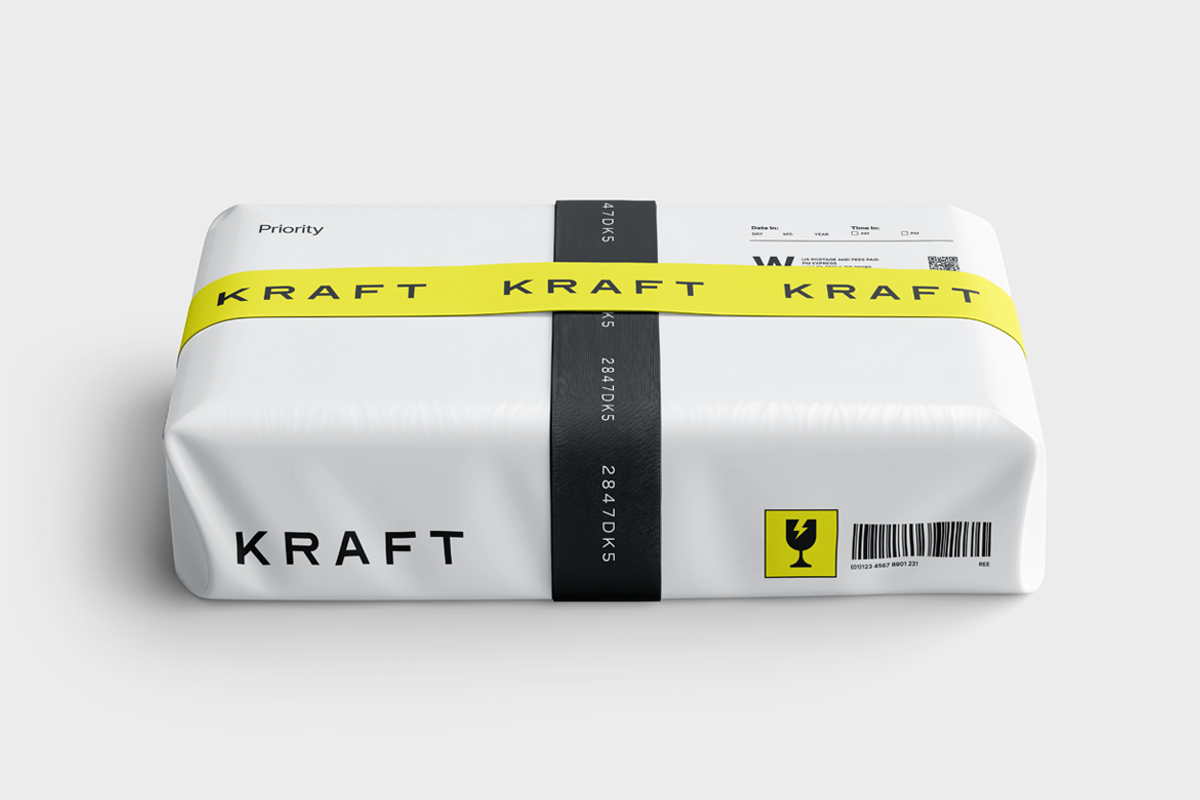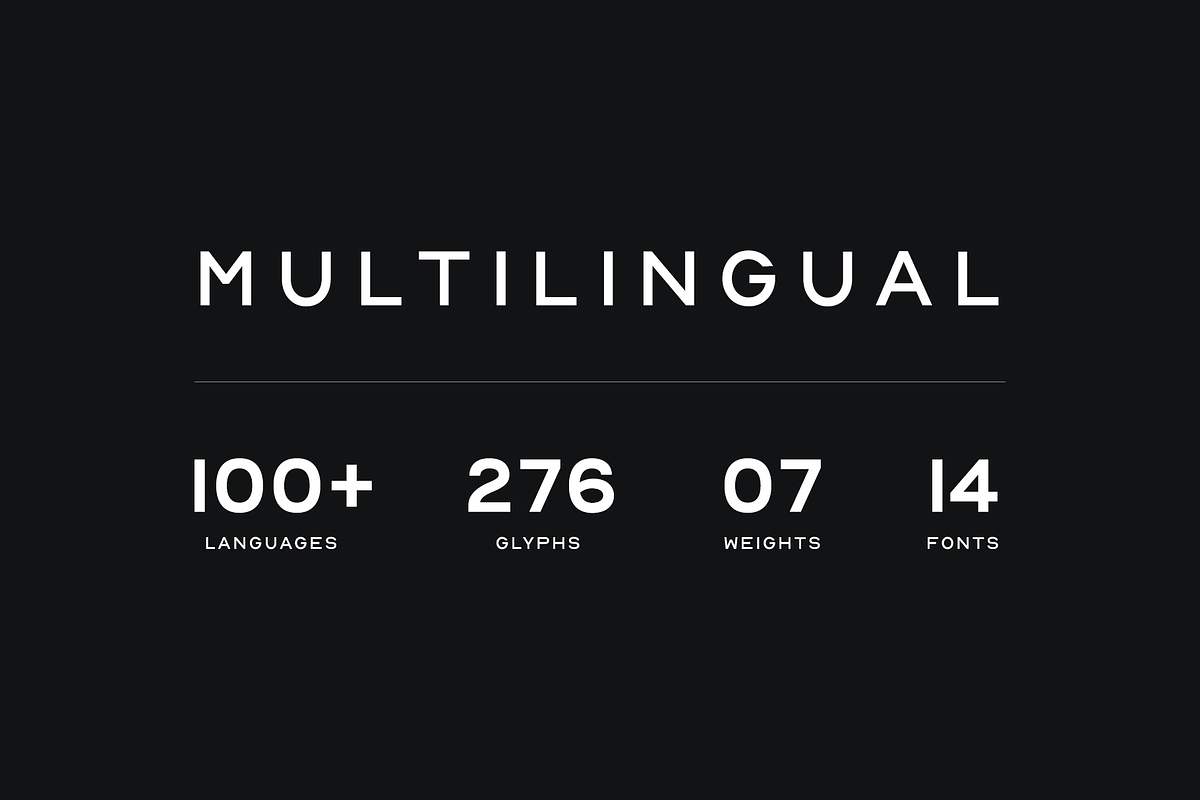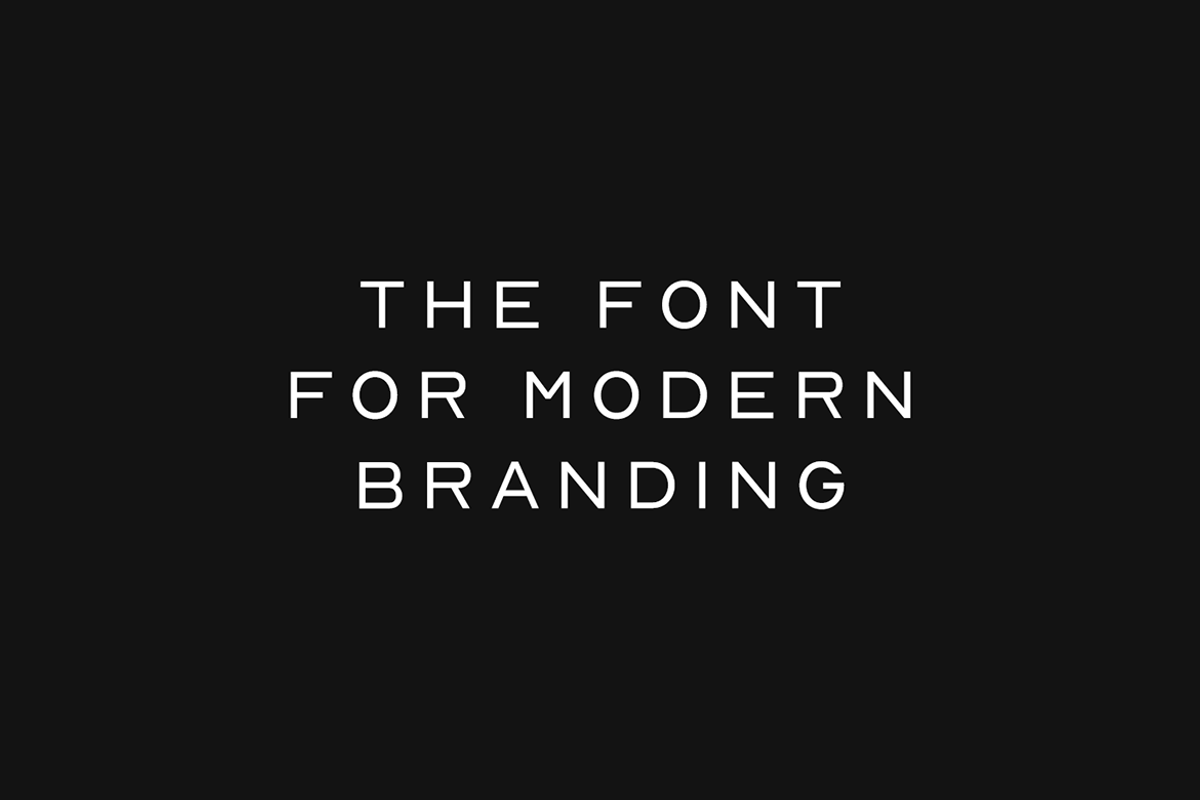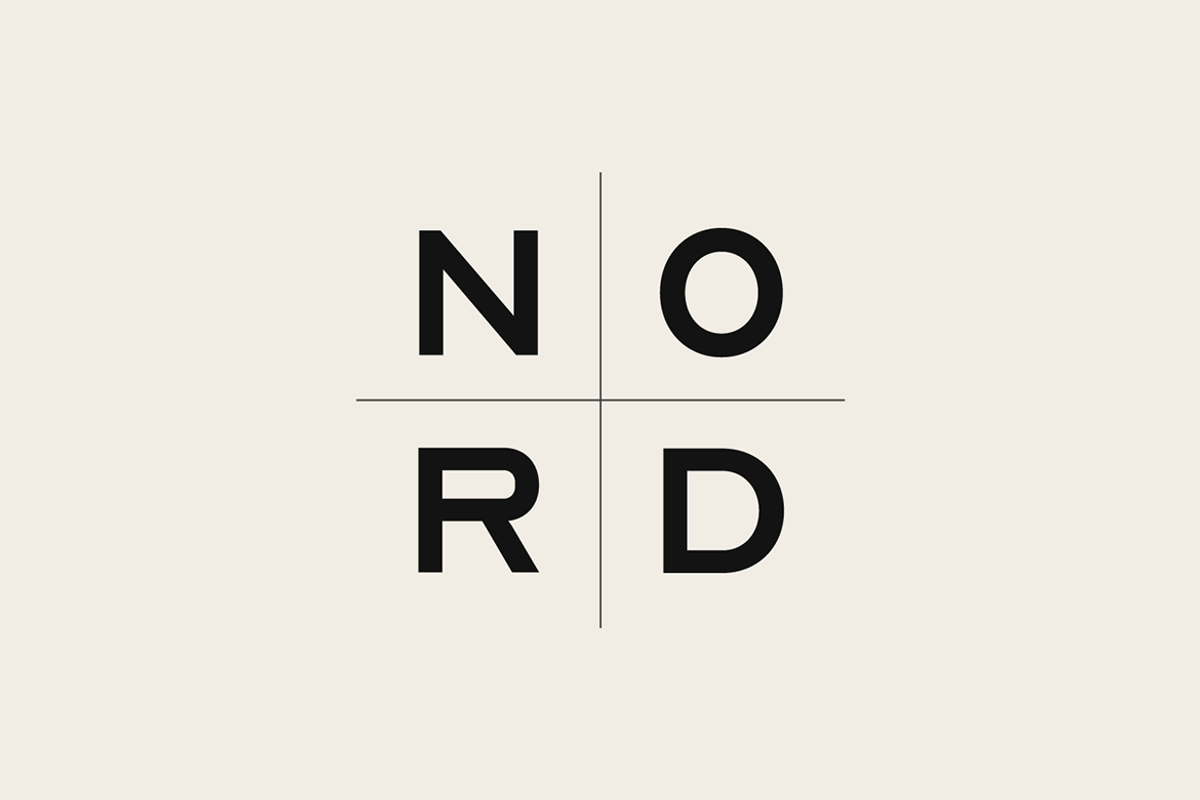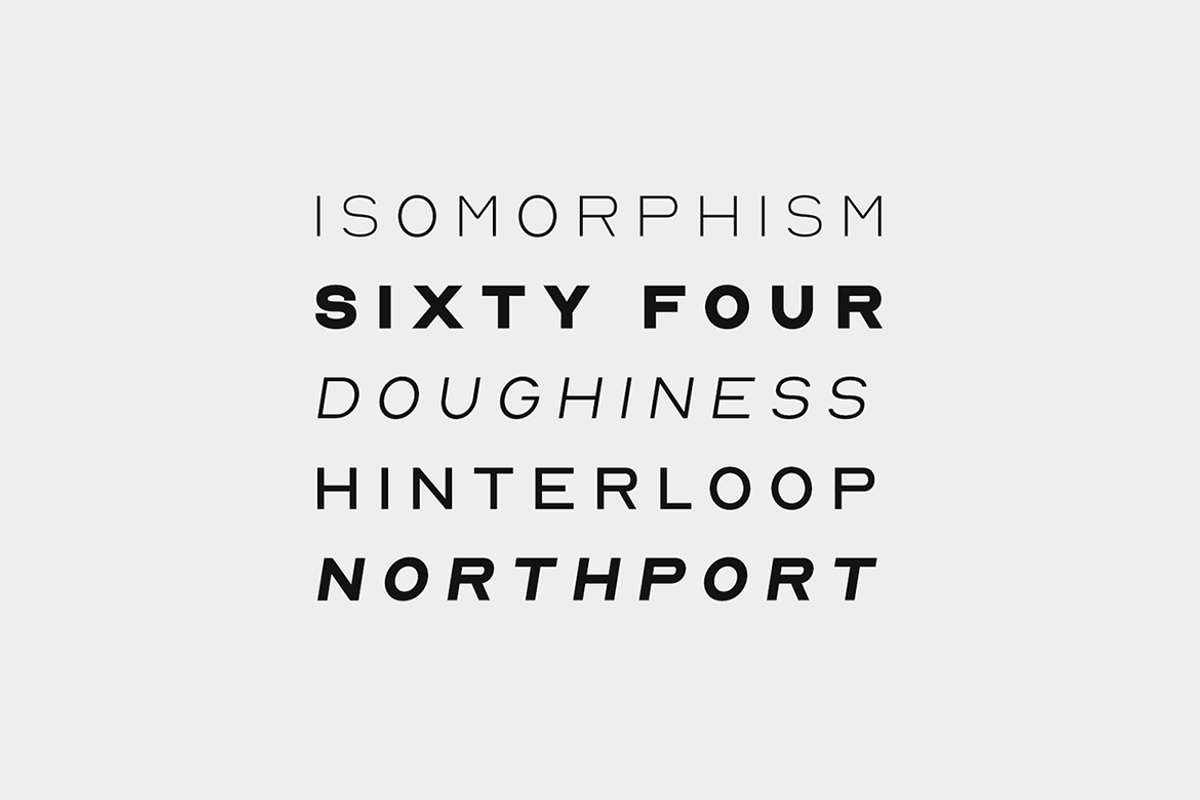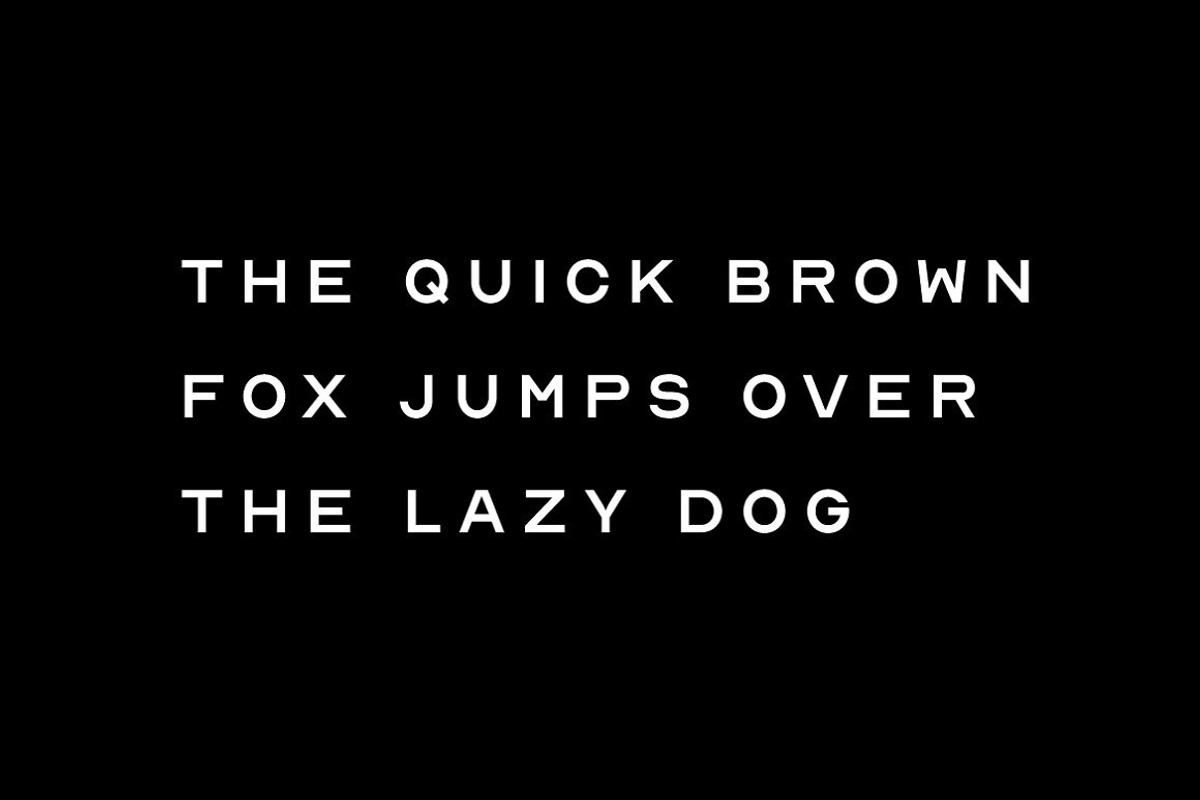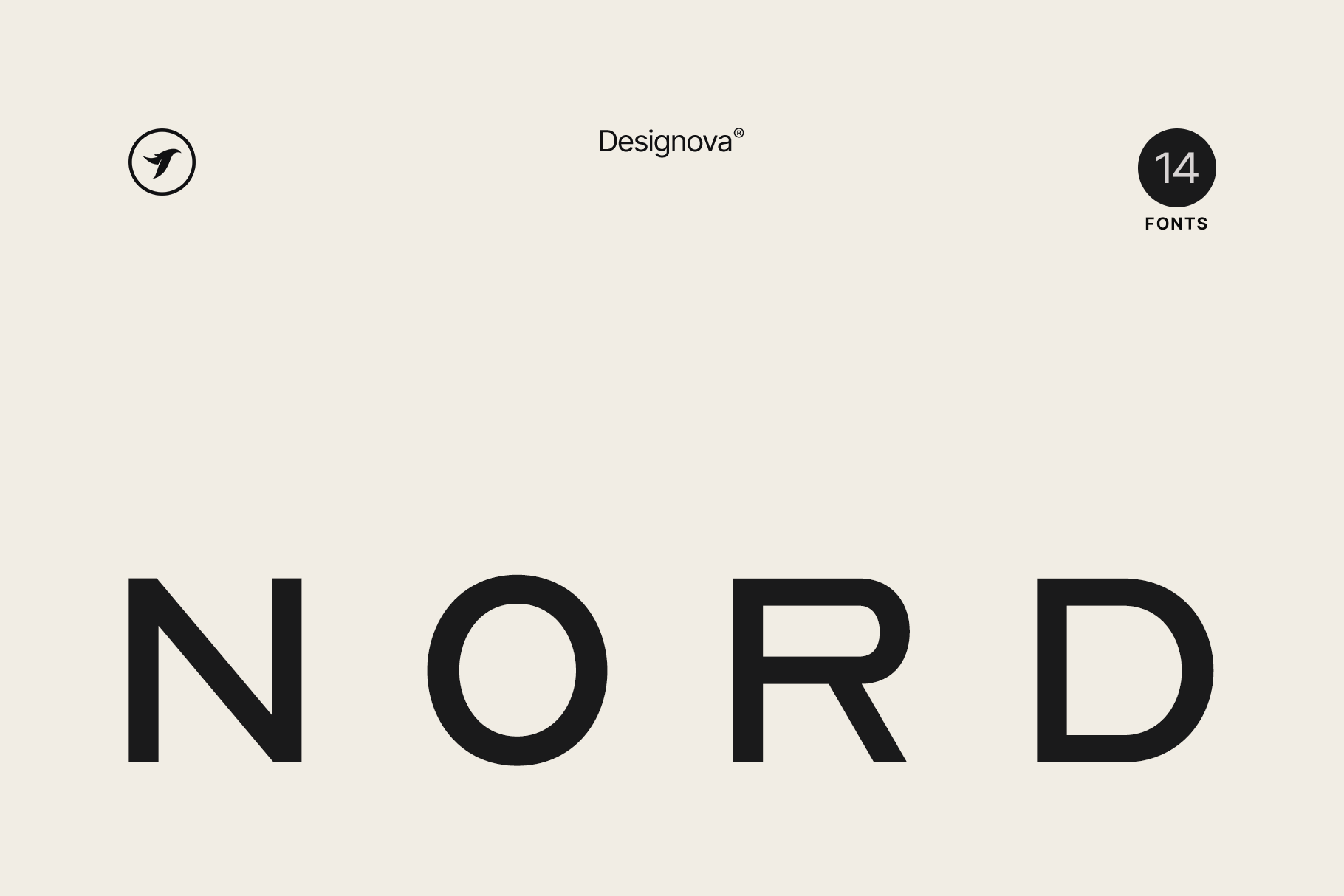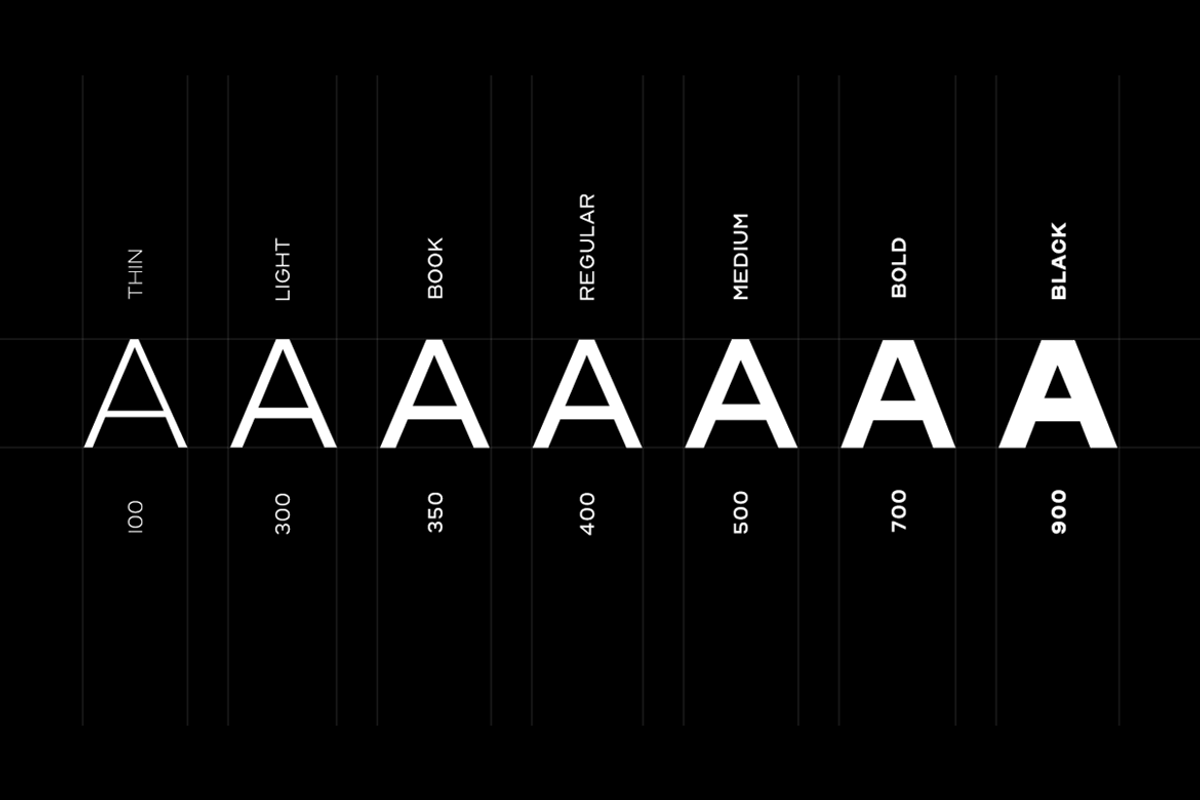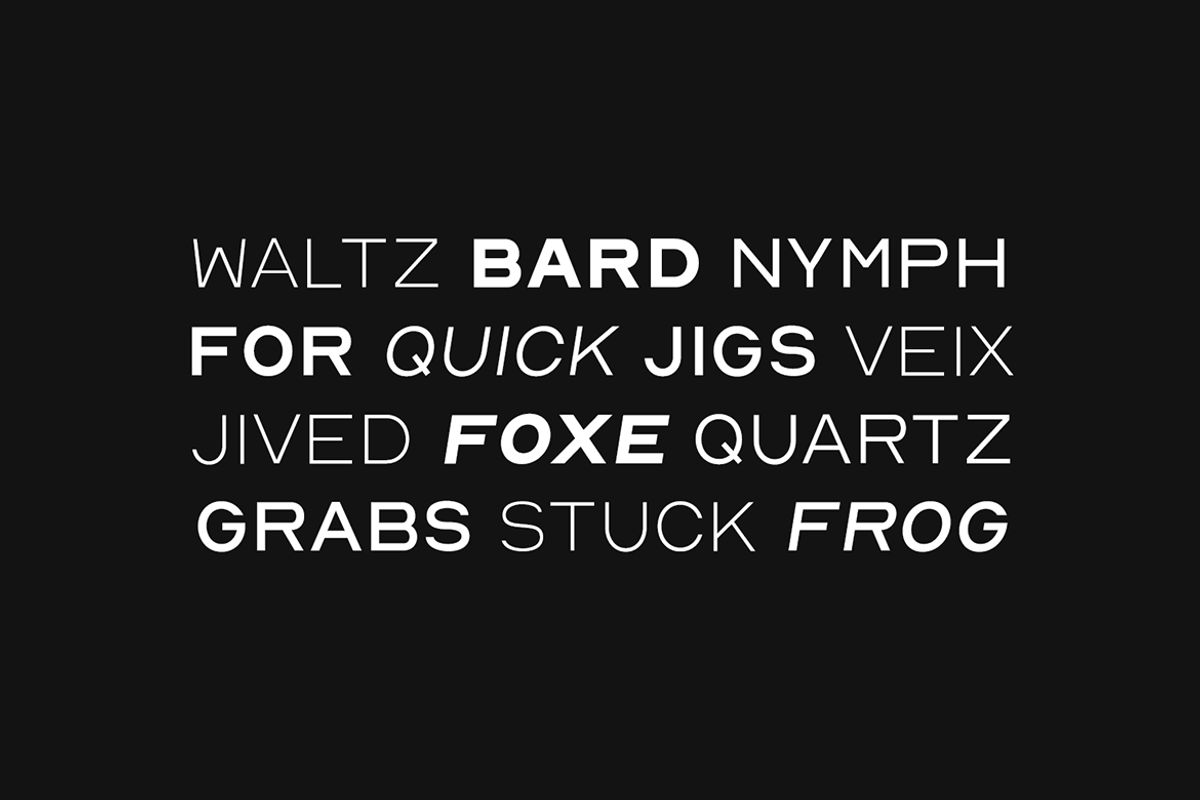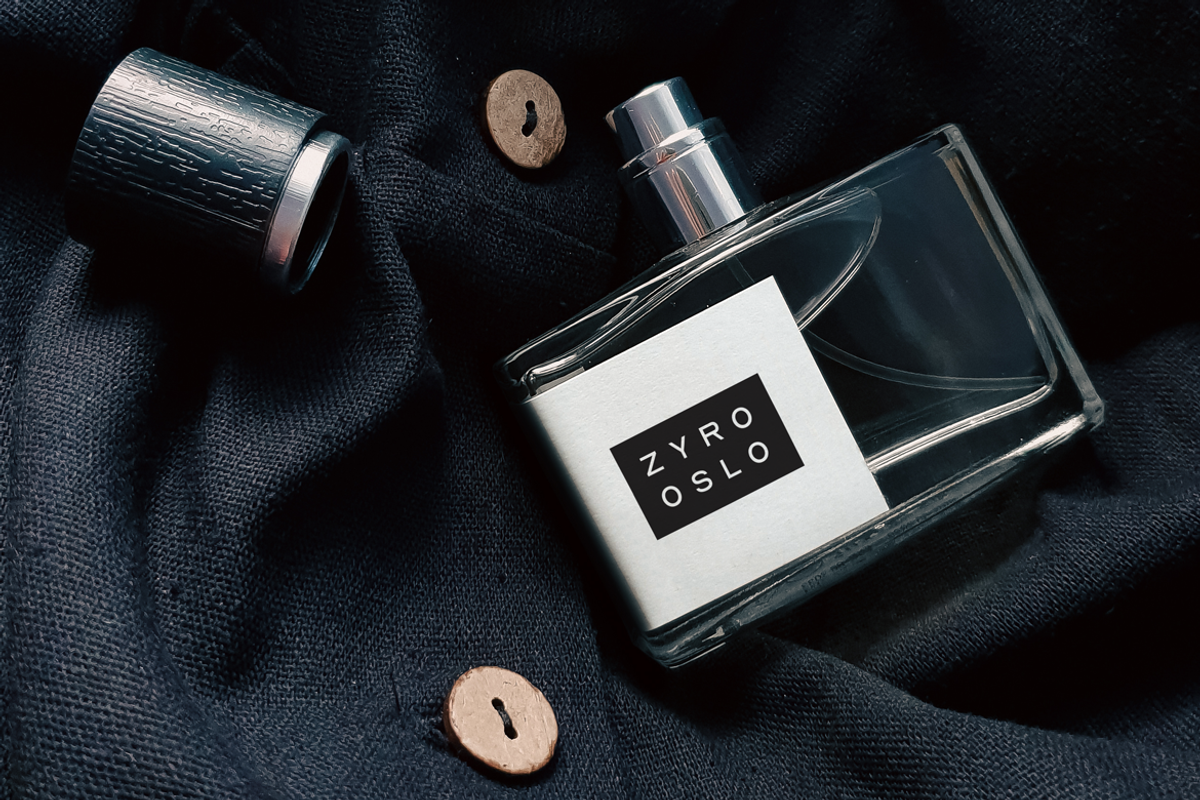
NORD - Minimal Display Font Family
ABOUT THE FONT FAMILY:
NORD is a minimal & modern Sans Serif / Display / All-Caps font family that stands out from the crowd. NORD will be best suited for creating logotypes, branding, headlines, corporate identities, and marketing materials for web & print as well as any type of minimal designs.
Thanks to its efficient letter spacing options, this versatile font offers endless possibilities for modern and minimalist designs, including logos, headlines, and identities. Please see the included demo graphics to get an idea about the capability of this typeface when used for branding and marketing material design.
NORD font family comes with 14 fonts, including 7 upright weights (THIN / LIGHT / BOOK / REGULAR / MEDIUM / BOLD / BLACK) as well as Italic versions of all 7 weights. Each weight includes extended language support including Western European & Central European sets. A total of 276 glyphs are included (updated as version v2.5).
NORD font family includes a collection of 14 fonts in total, with seven upright weights and Italic equivalents of all seven weights as follows:
- Thin
- Thin Italic
- Light
- Light Italic
- Book
- Book Italic
- Italic
- Medium
- Medium Italic
- Bold
- Bold Italic
- Black
- Black Italic
276 GLYPHS INCLUDED:
Handcrafted and designed with powerful OpenType features in mind, each weight includes extended language support with Western European, Central European, and South Eastern European sets. A total of 276 glyphs are available.